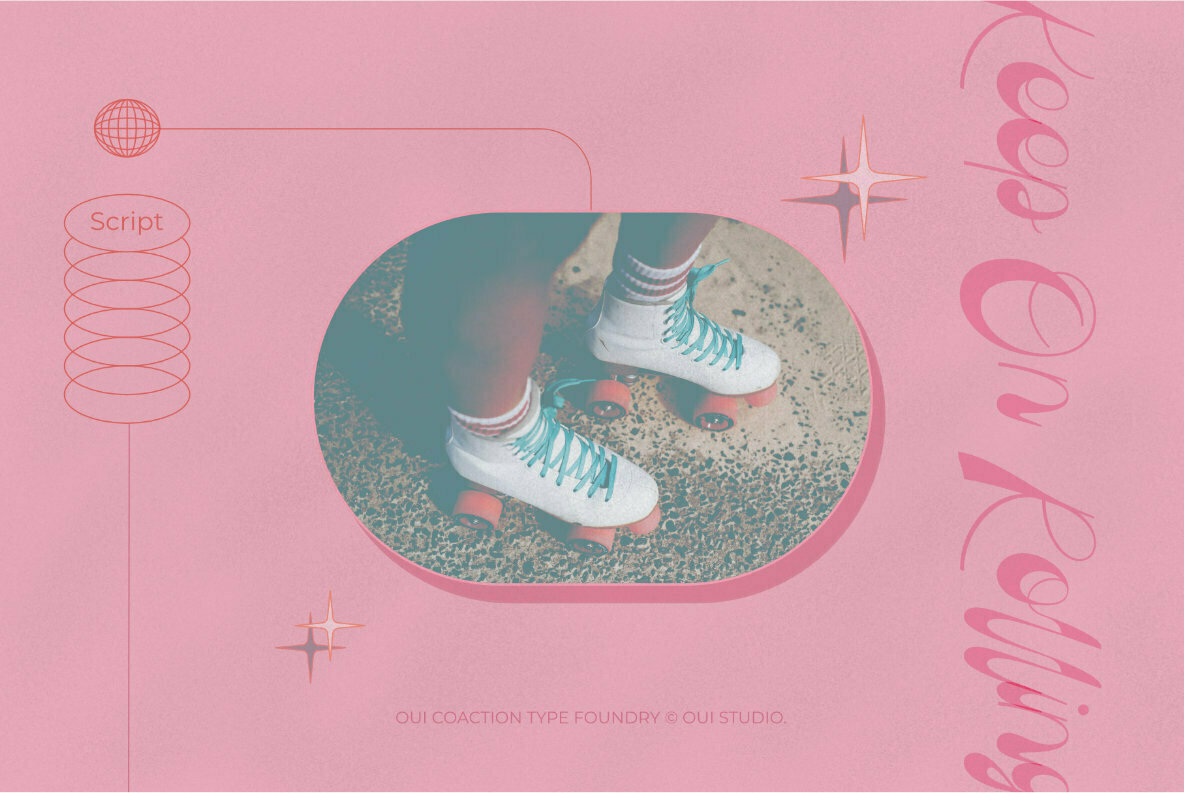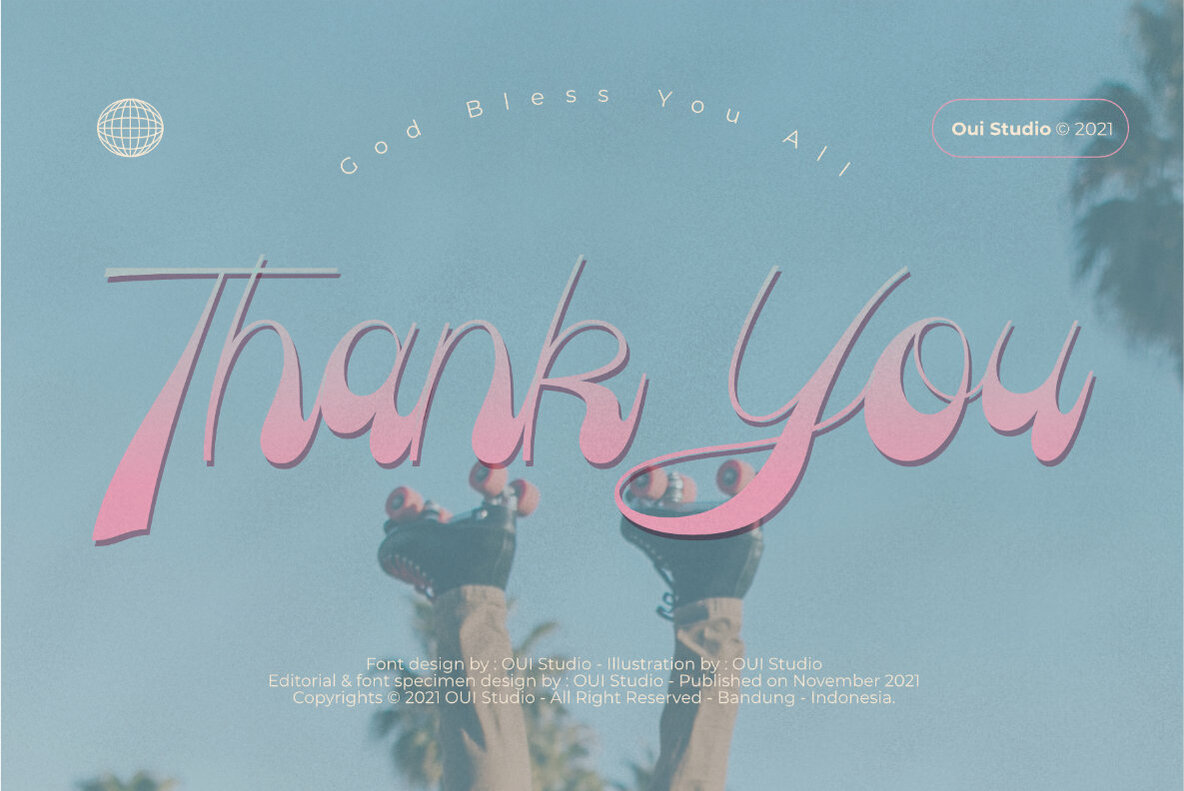
Coaction Font
Oui Coaction Regular
Immerse yourself in the joyful nostalgia of the '70s with Coaction, a playful font crafted by Oui Studio. Drawing its inspiration from the vibrant roller skates era, this stylish script typeface effortlessly brings a sense of fun and energy to your digital projects. Coaction is designed to complement a wide array of creative endeavors, making it an ideal choice for designers seeking a retro flair.Coaction: Retro Font Inspired by the '70s Roller Disco Era